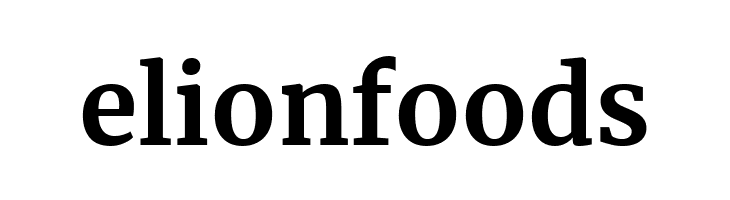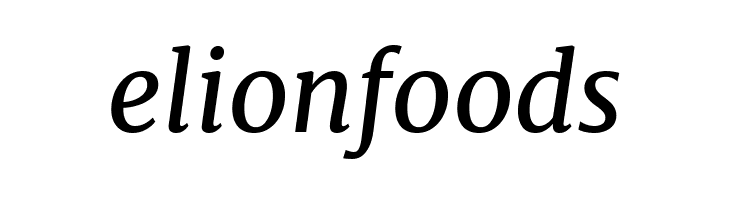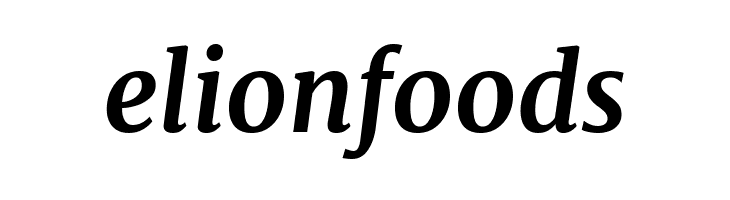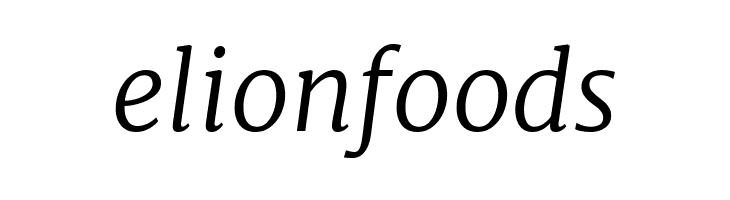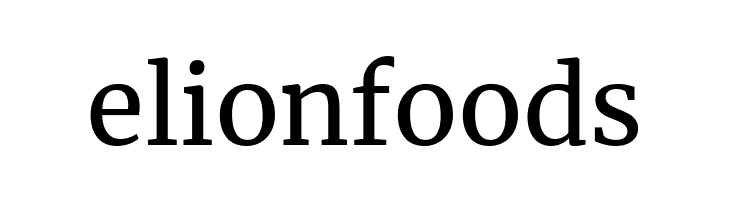
• Merriweather Bold
A bold serif typeface with high contrast and elegant serifs.
• Merriweather Bold Italic
A bold, italic serif font with a classic yet dynamic style.
• Merriweather Italic
A modern serif font with elegant italic styling and medium contrast.
• Merriweather Light
An elegant serif font with balanced contrast and excellent readability.
• Merriweather Light Italic
A refined, light, and italic serif font with medium contrast and a modern aesthetic.
• Merriweather Regular
A serif typeface with balanced contrast and elegant curves for readability.